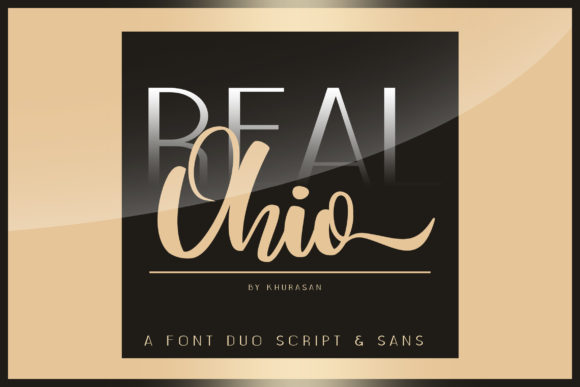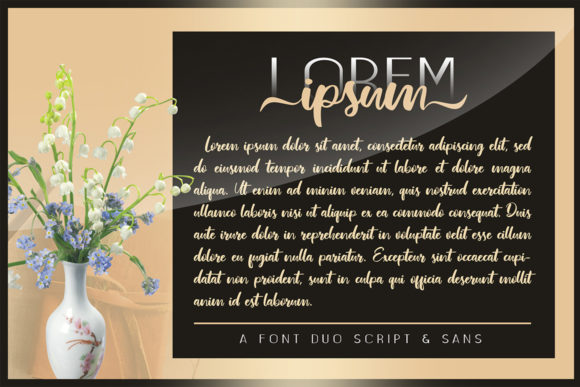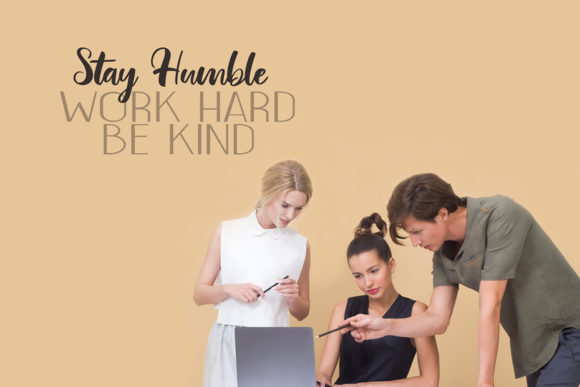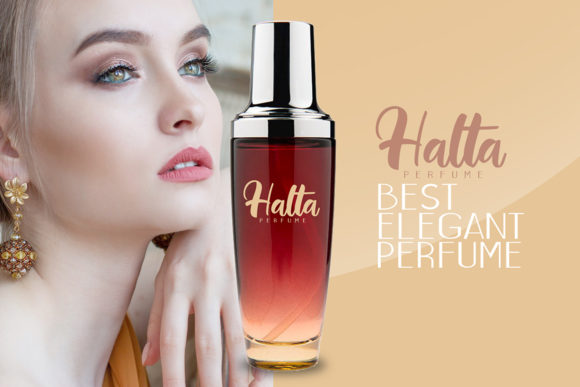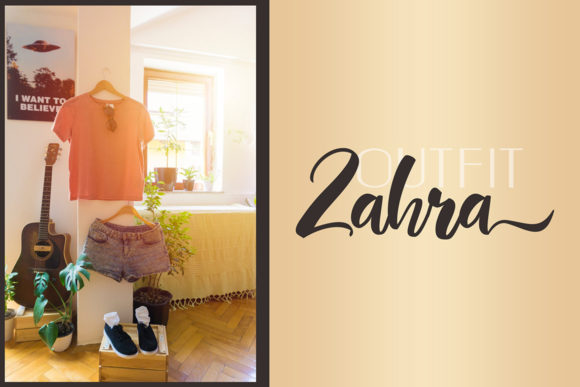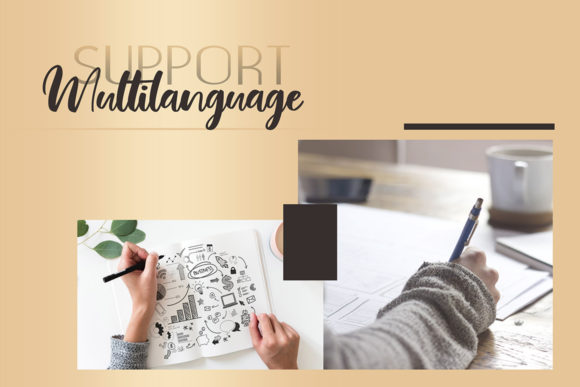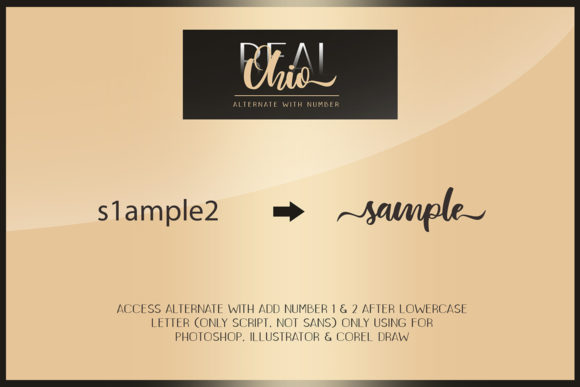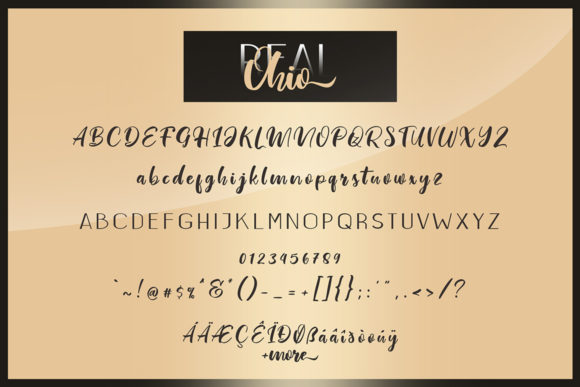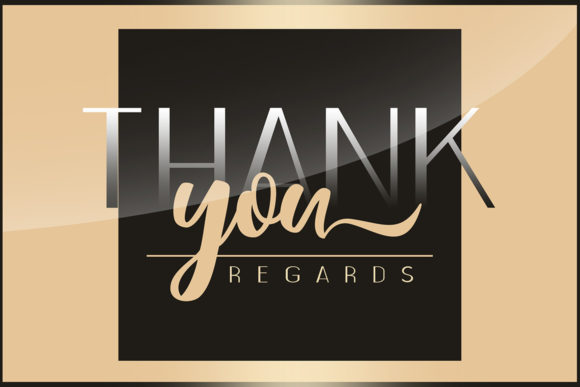
Real Ohio Duo Font
About Real Ohio Duo Font
The Real Ohio is an amazing font duo. It comes in a script and sans version which can be combines perfectly, giving you the opportunity to create multiple unique designs with just this one download.